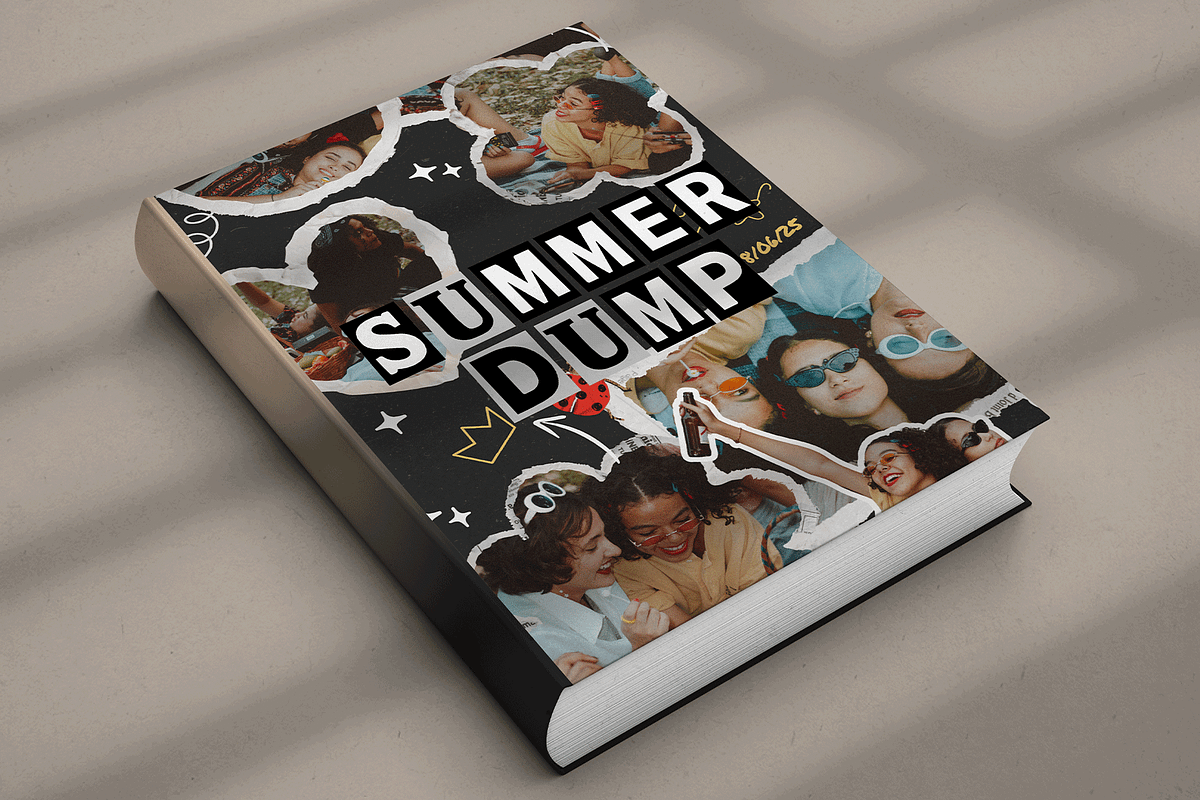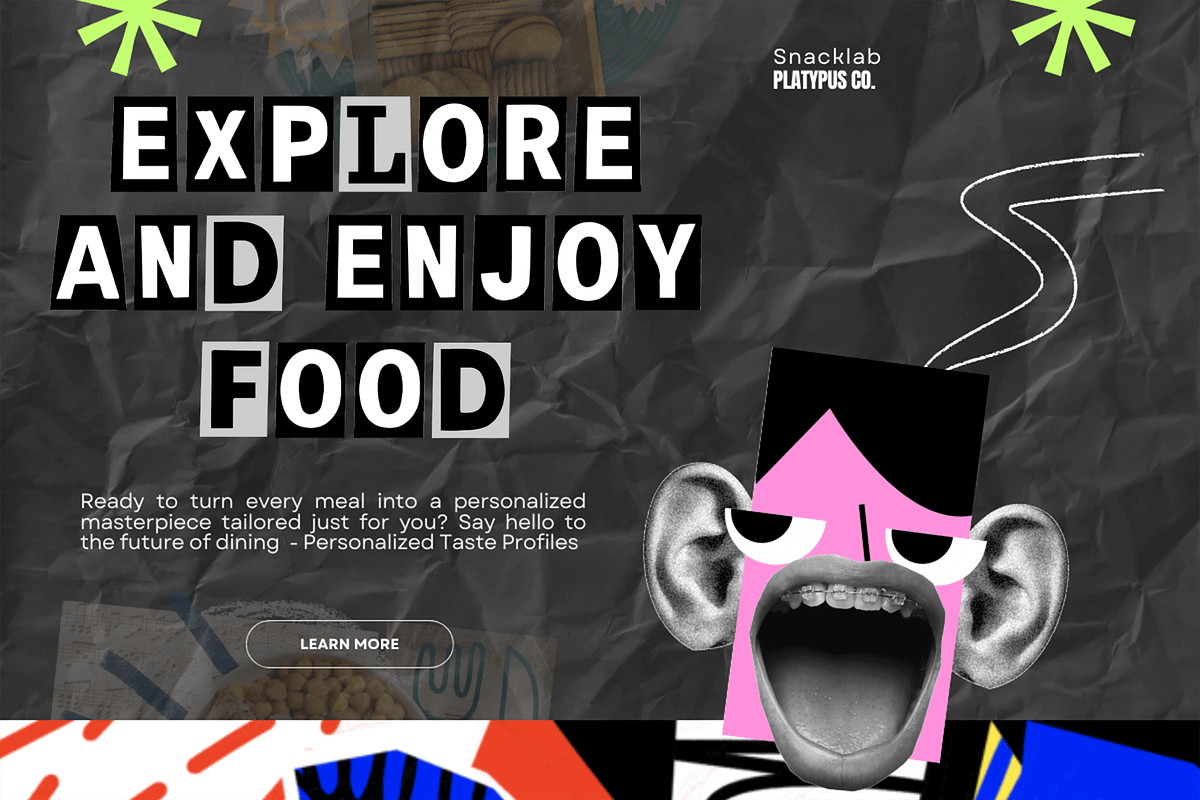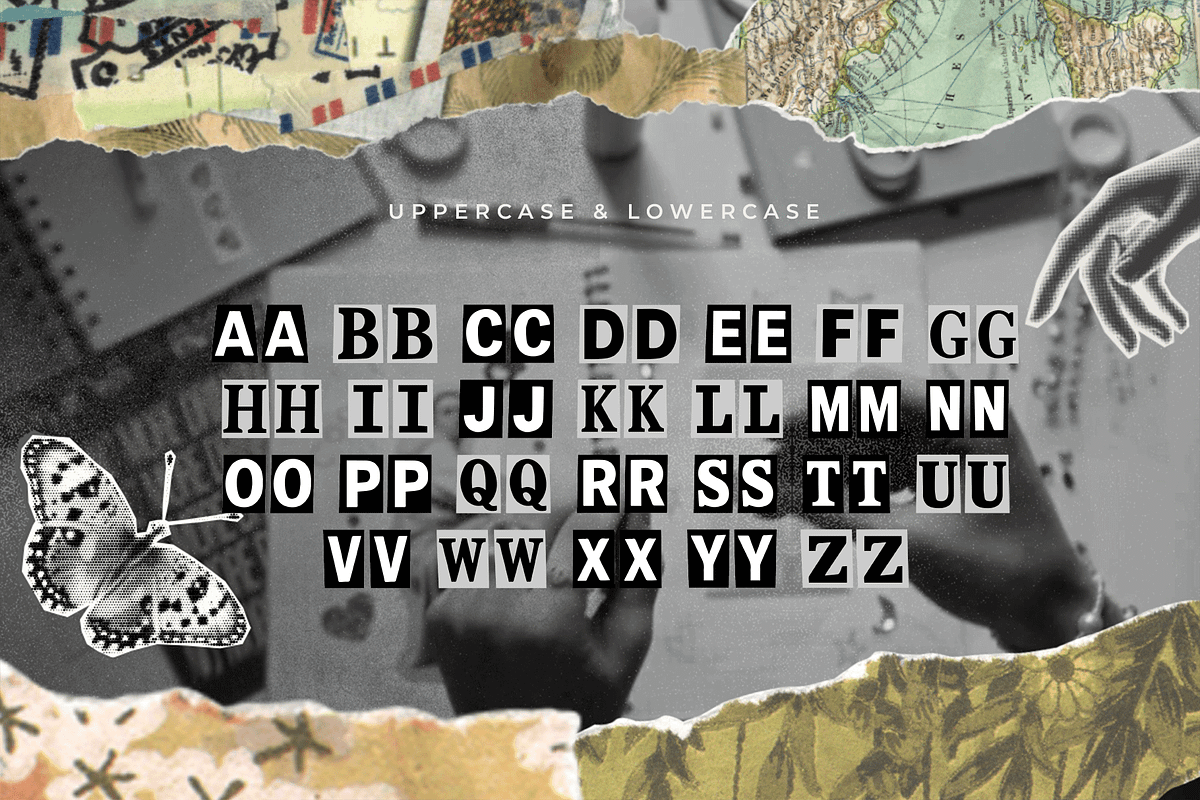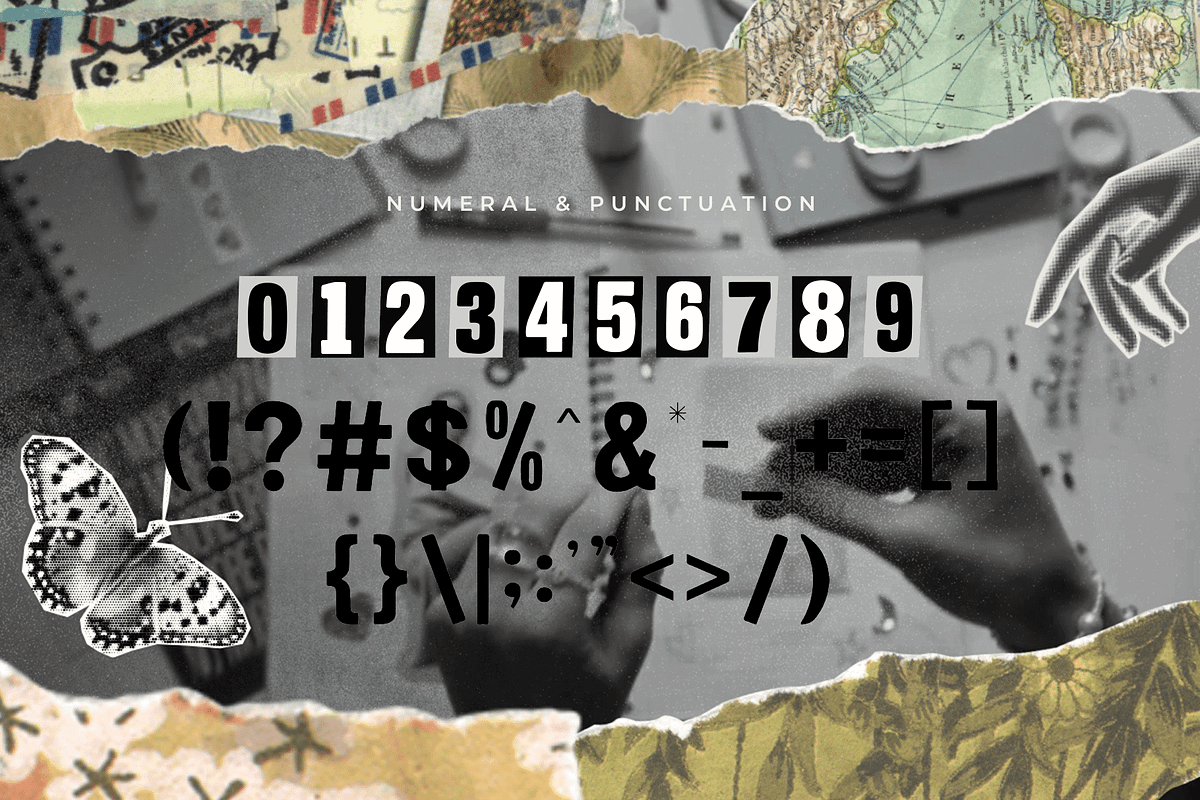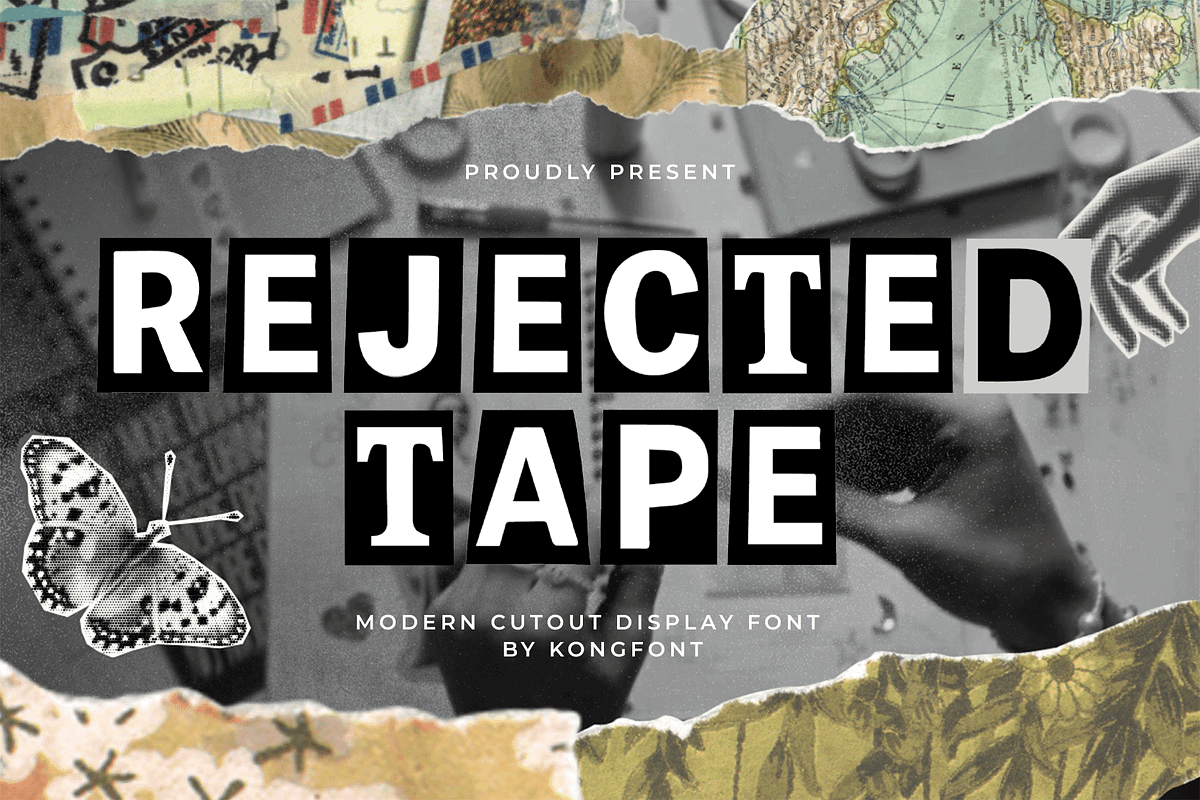
Rejected Tape–Modern Cutout Display
Rejected Tape – Modern Cutout Display Font
Rejected Tape is a modern cutout display font that channels the raw, chaotic energy of handmade collages and retro DIY punk aesthetics. With jagged edges, uneven baselines, and an intentionally mismatched layout, this typeface brings gritty personality and visual tension to your design.
Perfect for underground zines, rebellious branding, edgy posters, horror titles, album covers, and experimental visuals, Rejected Tape embraces imperfection and transforms it into bold, eye-catching typography. Each letter feels like a piece of torn paper pasted together to make a statement loud, defiant, and full of attitude.
This font includes uppercase and lowercase characters, numbers, punctuation, and multilingual support, giving you creative flexibility with a one-of-a-kind look.
Give your project a voice that’s rough, raw, and unapologetically real with Rejected Tape.